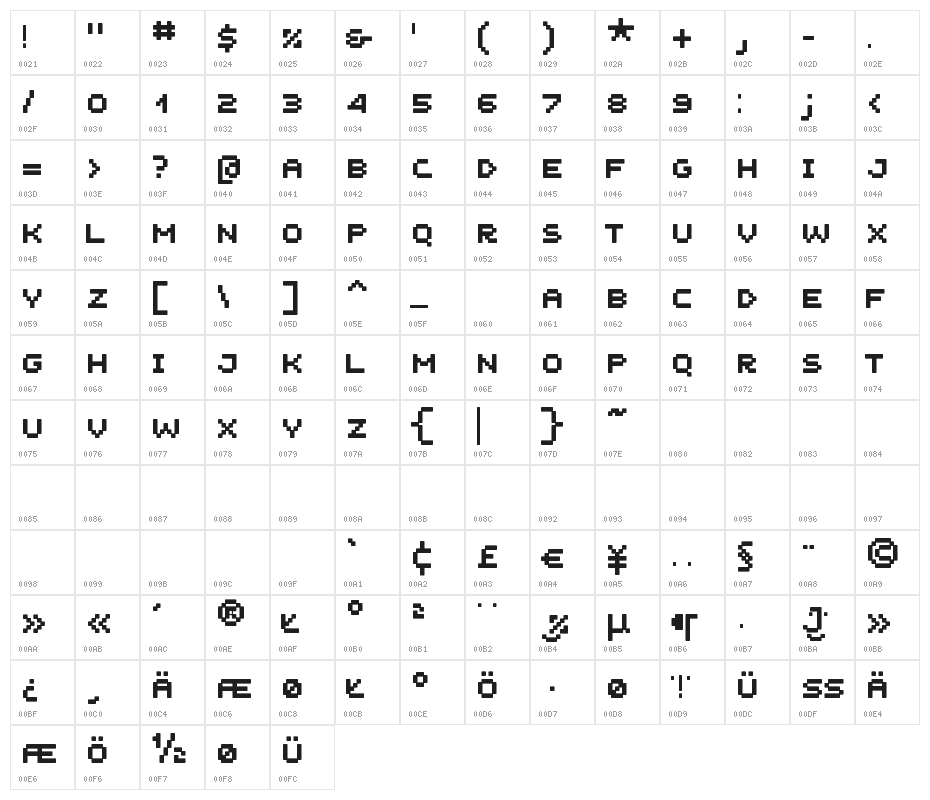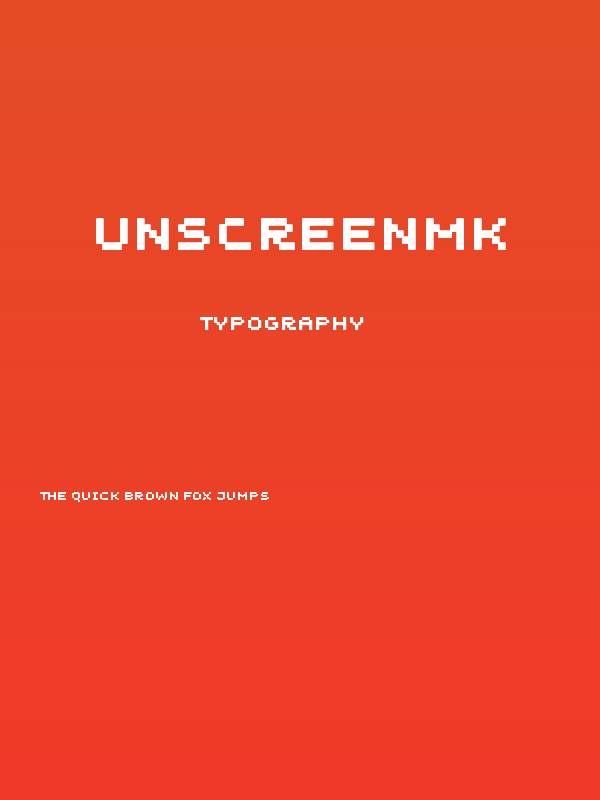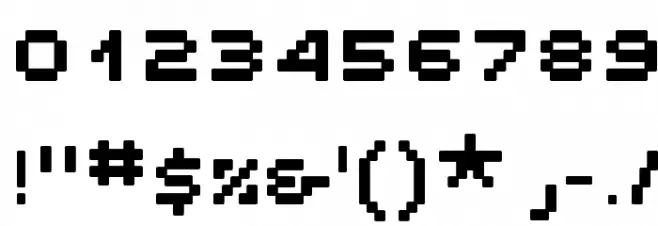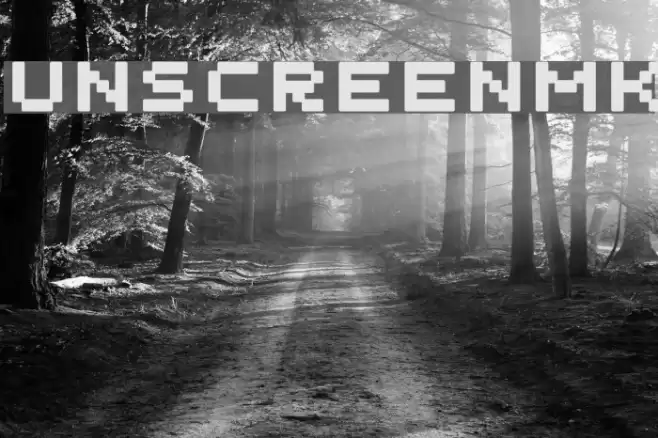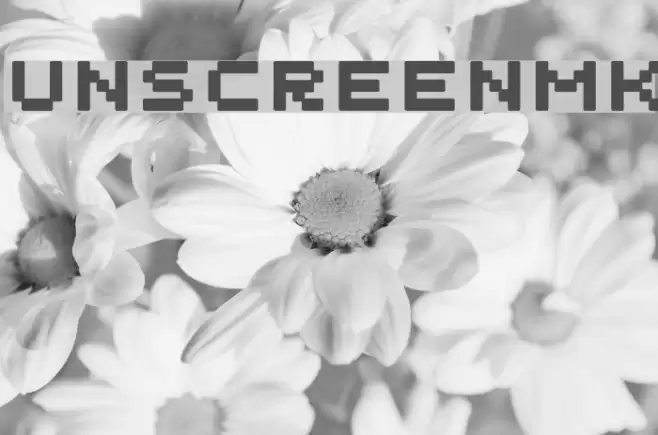
UnscreenMK Font
UnscreenMK Description
This font features a bold, pixelated style reminiscent of early digital or video game typography. Each character is constructed with a blocky, grid-like appearance, giving it a distinctly retro and digital aesthetic. The uniformity in stroke width across all characters contributes to a cohesive and structured look. The uppercase and lowercase letters maintain a consistent height, enhancing readability while preserving the pixel art charm. Numerals and special characters follow the same design principles, ensuring a seamless integration within any digital-themed project. This font is ideal for projects that aim to evoke nostalgia or a tech-inspired atmosphere.
| Use Case | Logos, Headlines, Digital Art |
| Proposed Projects | Ideal for video game design, digital art projects, retro-themed graphics, and tech-related branding. |